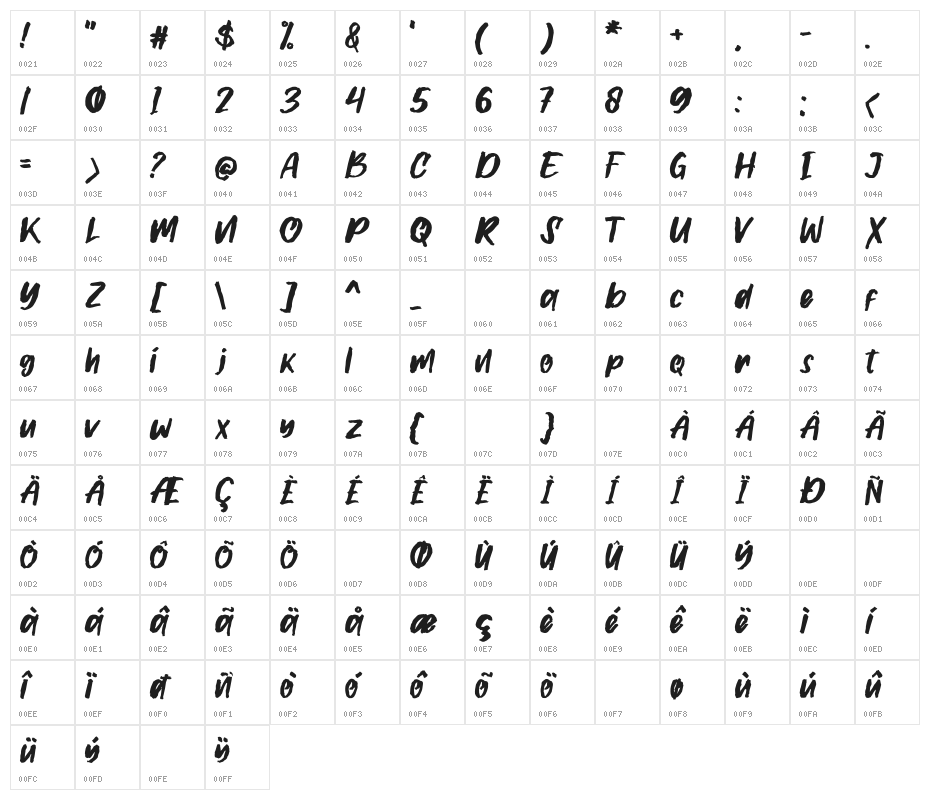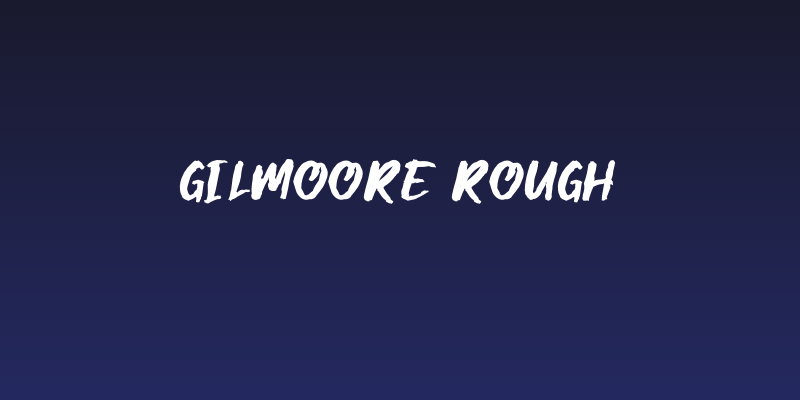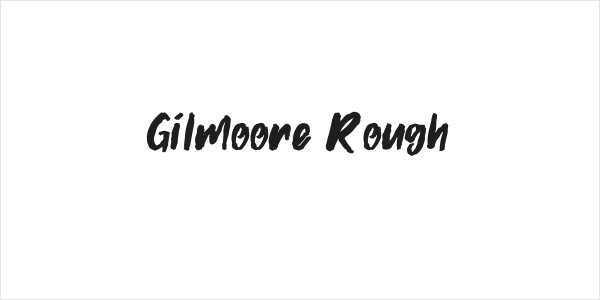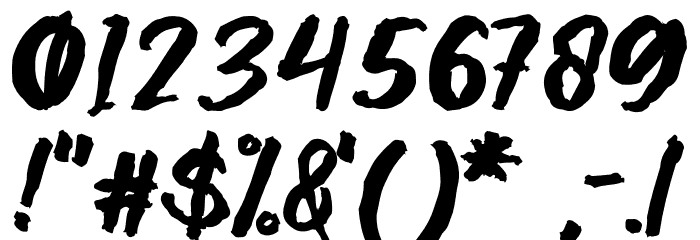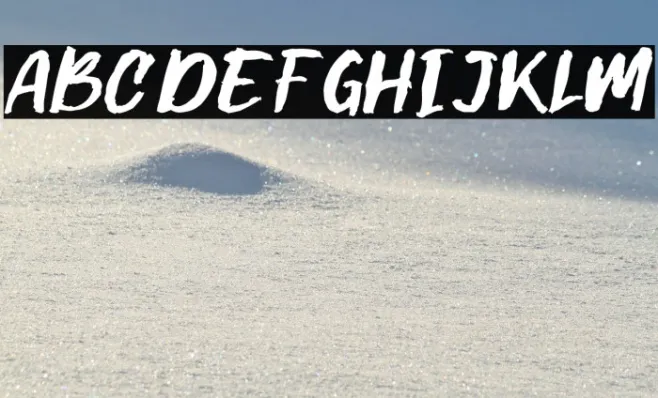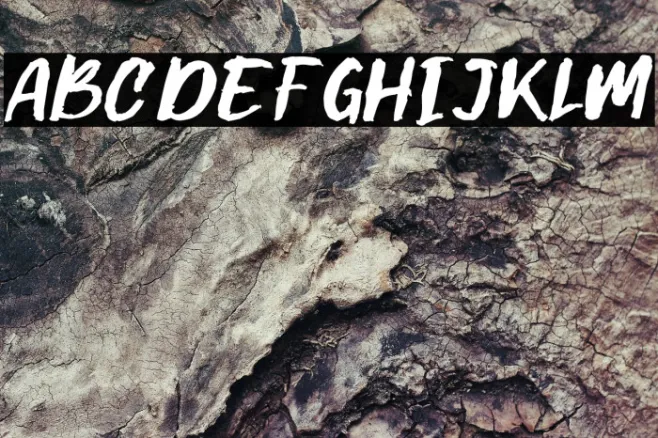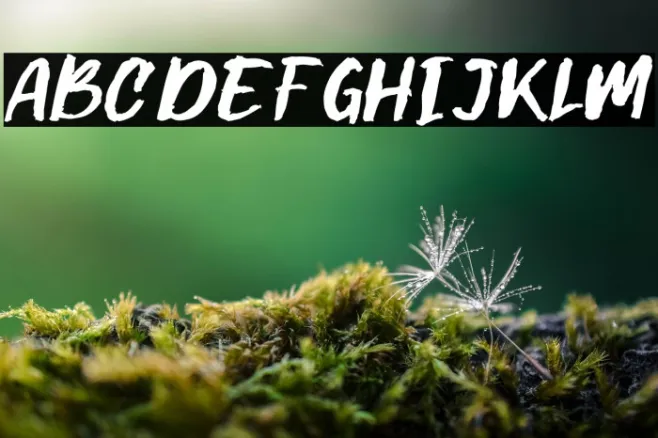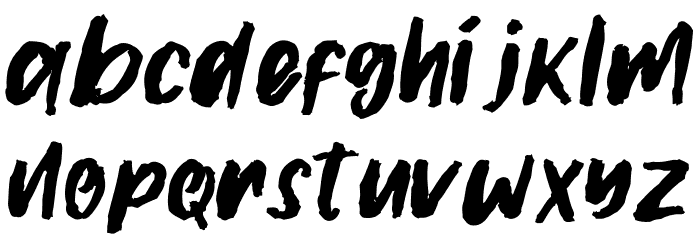
Gilmoore Rough Font
Gilmoore Rough Description
This font exhibits a bold and dynamic brush script style, characterized by its rough, textured appearance that mimics hand-painted strokes. The letters are irregular and organic, giving a sense of movement and energy. The uppercase and lowercase letters maintain a consistent style, with varying stroke widths that add to the font's expressive nature. Numbers and special characters are equally bold, ensuring a cohesive look across all glyphs. This font is ideal for projects that require a personal, artistic touch, such as posters, branding, and social media graphics.
| Proposed Projects | Ideal for artistic projects, branding, posters, and social media graphics. |